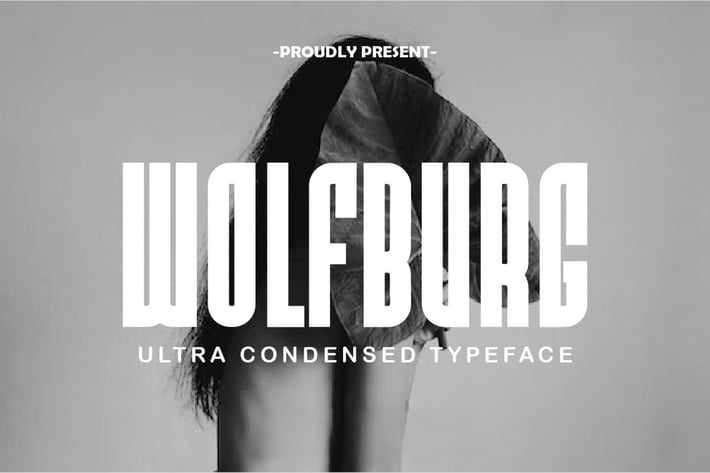
Wolfburg – Modern Condensed Display Font
Wolfburg is a sleek modern condensed display font crafted for clarity, boldness, and versatility. With tall proportions and sharp edges, it’s perfect for magazine titles, branding systems, fashion lookbooks, posters, and digital interfaces that need to make a stylish statement.
This font is built for high-impact typography in contemporary design.
Key Features:
- Modern condensed design for stylish display use
- Great for editorials, branding, and packaging
- Clean and minimal shapes for sharp readability
- Ideal for fashion, tech, or lifestyle projects
- Uppercase characters, numerals, and punctuation
- Well-kerned and structured for balance
Wolfburg delivers modern sophistication in a bold, space-saving format.
Make an impact with Wolfburg – a bold and dynamic modern condensed display font.